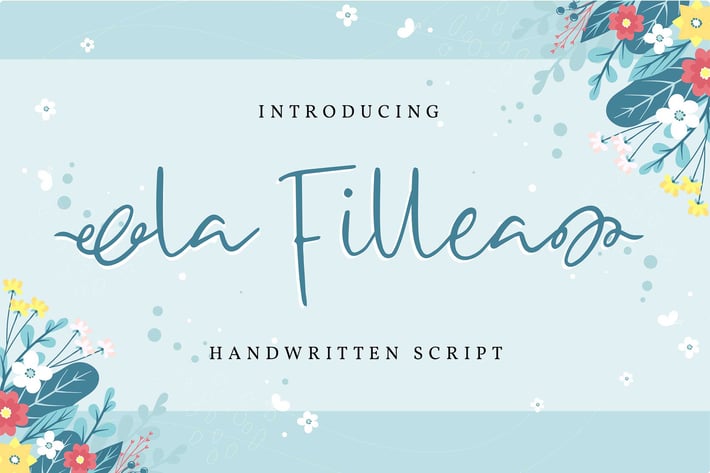
La Fillea | Handwritten Script Font
La Fillea | Handwritten Script Font with a calligraphy style, So beautiful on invitation like greeting cards, branding materials, business cards, quotes, posters, and more!